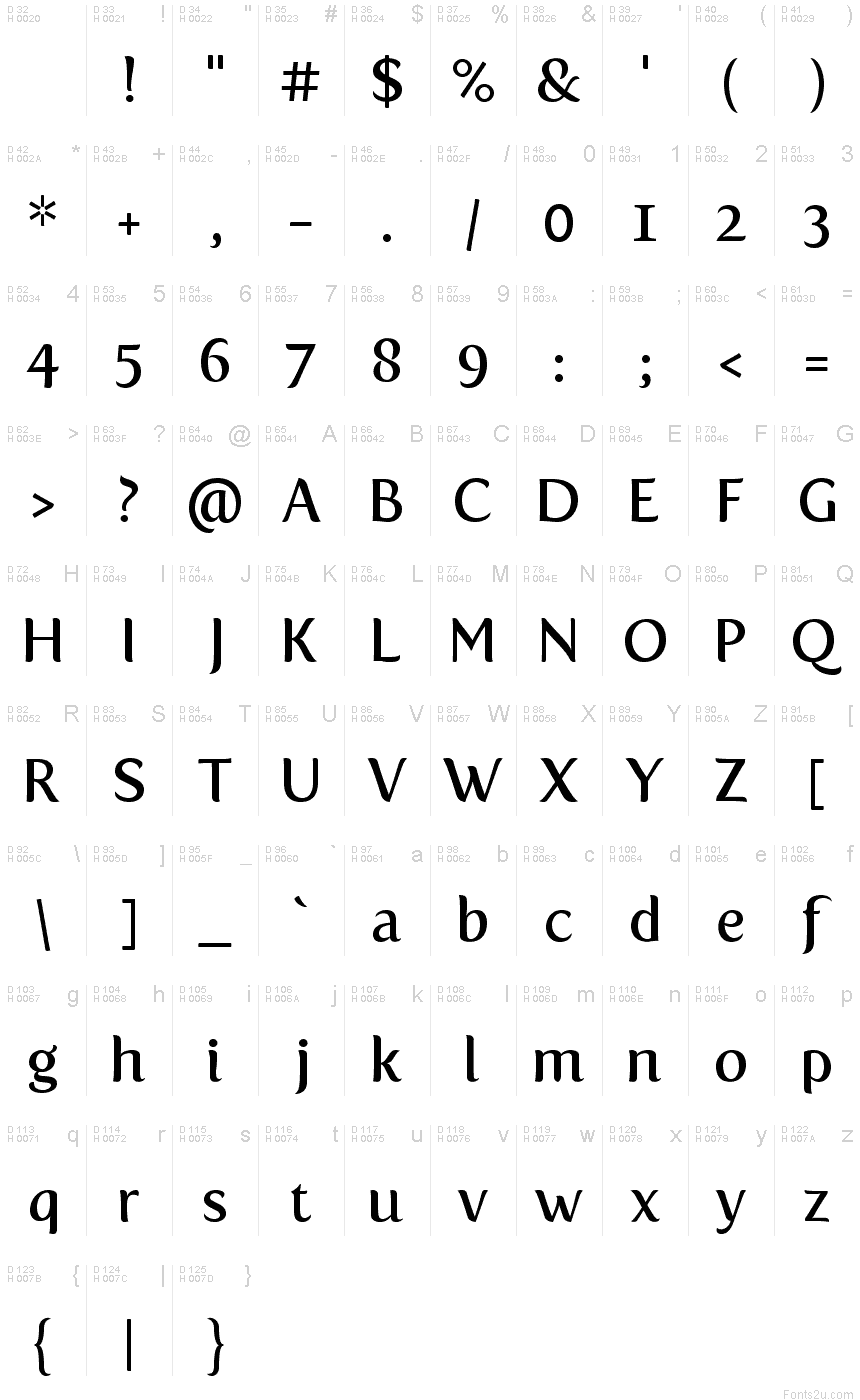
Fertigo by Jos Buivenga is a free calligraphic serif font with broad, gently modulated strokes and an easy handwritten flow. Rounded forms, softly tapered ends, and lively upward sweeps keep the lettering refined but never stiff or overly formal.
Book covers are a particularly good setting for its literary, personable shapes, especially in fiction or essays with a warm editorial voice. It also fits invitations and artisan food packaging. Across publishing, celebrations, boutique branding, and small-batch products, the common thread is graceful lettering with enough informality to feel personal rather than ceremonial.